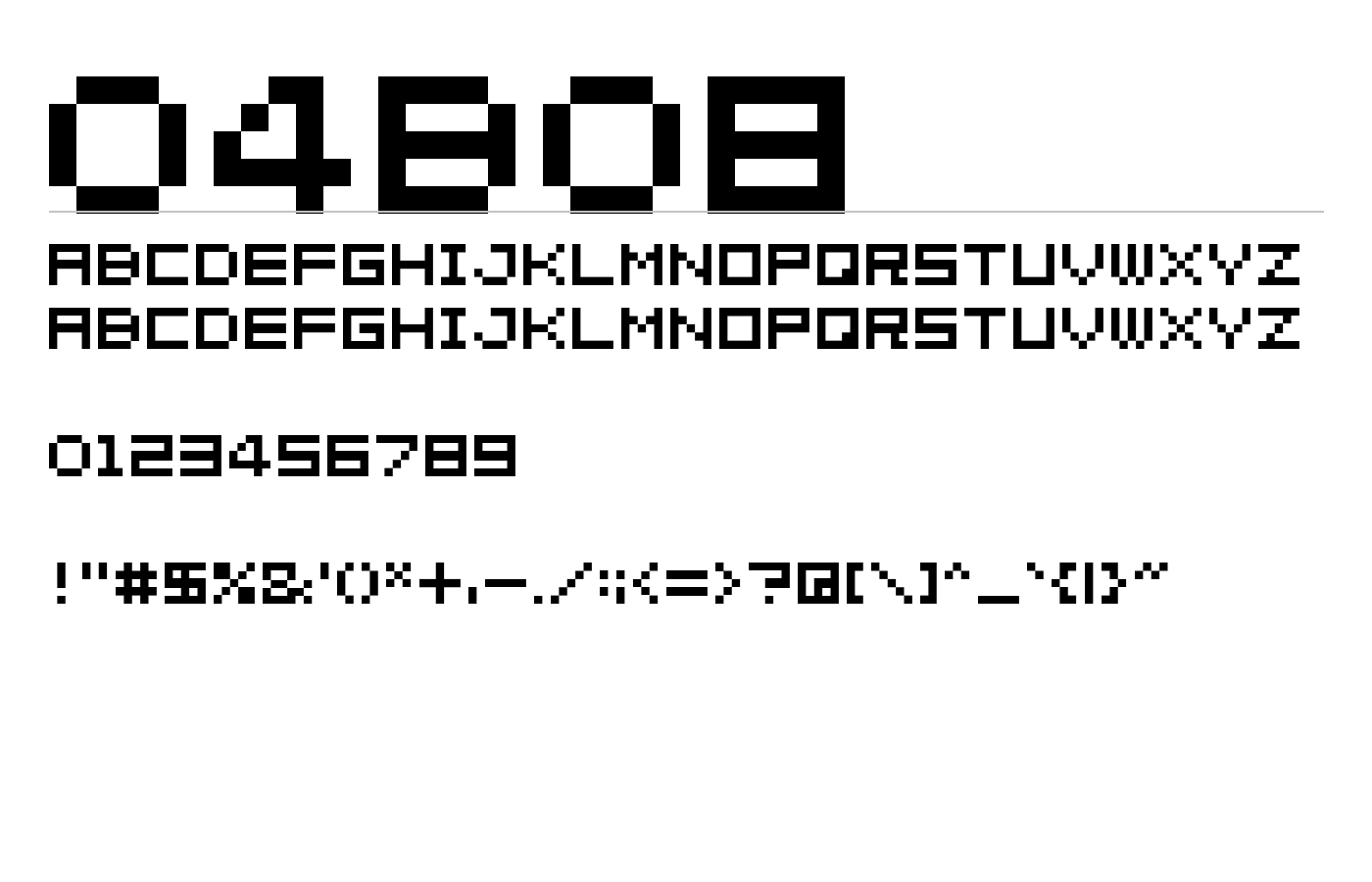
04b08 is a bold, pixel-style sans serif font that features a uniform stroke weight and blocky, geometric letterforms reminiscent of retro digital displays. Its high x-height and monospaced-like structure make it highly legible at small sizes, ideal for vintage video game aesthetics, tech-inspired designs, or pixel art projects. This font works best in headlines, logos, and user interfaces where a nostalgic, techy personality is desired.
04b08 Font
About 04b08 Font